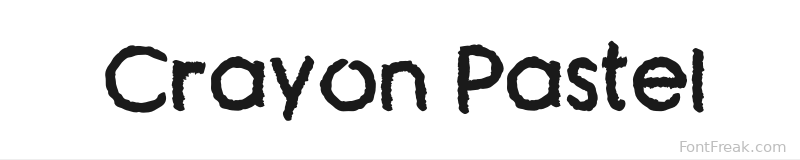
Crayon Pastel
About Crayon Pastel
Crayon Pastel, designed by MaknaStudio in 2022, is a delightful handwritten font that evokes a sense of whimsy and creativity. This unique font features a playful, crayon-like appearance, characterized by its soft, uneven strokes and a charmingly imperfect finish. The stroke weight is consistent but varies slightly in thickness, giving it an organic feel that enhances its artistic appeal. The spacing between the letters is generous, ensuring legibility while maintaining a casual, inviting aesthetic.
This font is particularly well-suited for a variety of creative projects. Its cheerful and approachable style makes it an excellent choice for children's books, where it can capture the imagination of young readers. Additionally, Crayon Pastel is perfect for crafting eye-catching greeting cards and invitations, especially for birthdays or casual events. It can also be effectively utilized in restaurant menus, lending a friendly vibe that encourages diners to feel at home. Furthermore, small business owners can use this font in branding materials to communicate a fun and approachable identity to their customers.
Targeting graphic designers, content creators, and small business owners alike, Crayon Pastel offers versatility and charm that appeals to a wide audience. Its freeware license allows for easy access, making it an ideal choice for projects where budget constraints are a consideration.
What truly sets the Crayon Pastel font apart is its ability to blend playfulness with functionality. The whimsical crayon texture adds an element of creativity that can elevate any design, making it memorable and engaging. For those looking to add a unique touch to their work, the Crayon Pastel font free download is a must-have resource that brings artistry to the forefront of your projects.